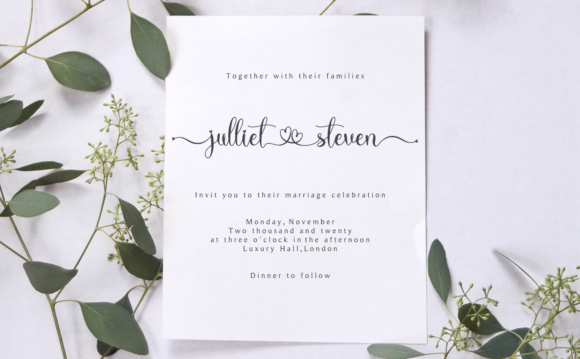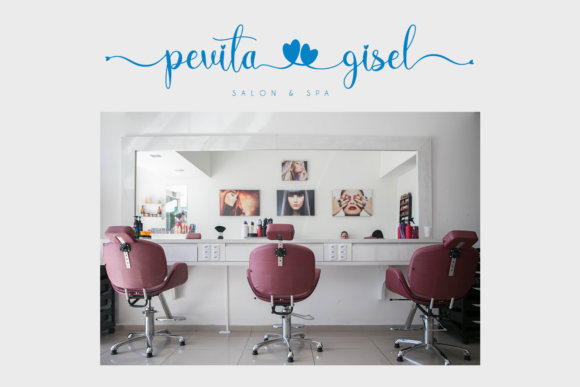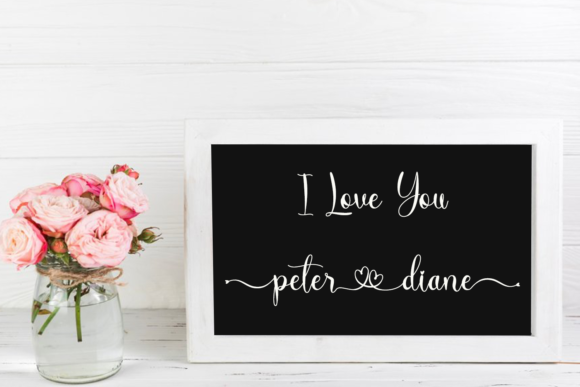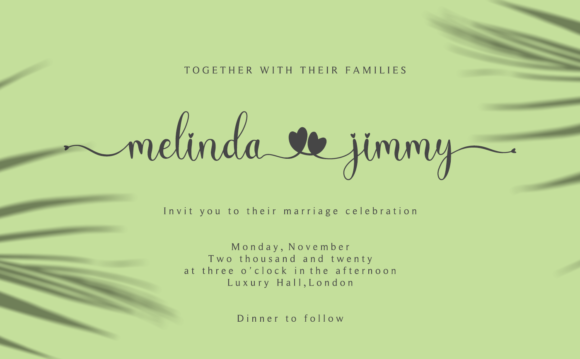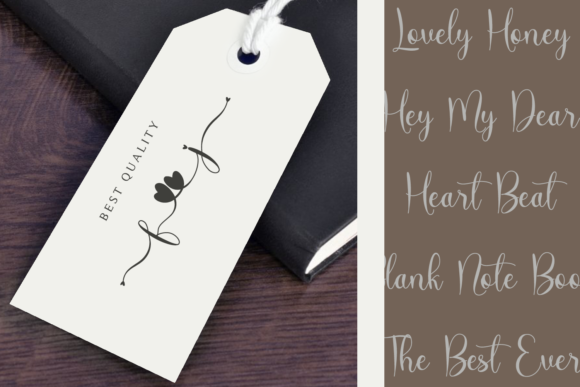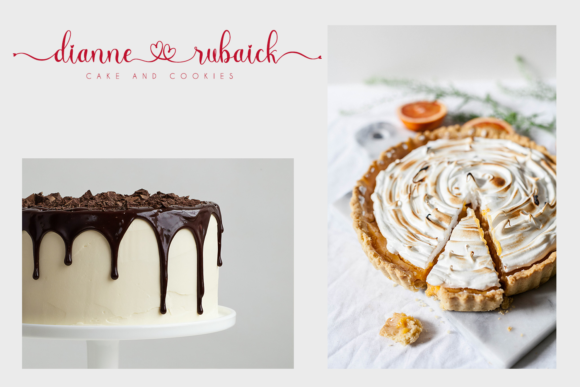
Introduction to Molly Willy Font
Have you ever been working on a creative project and stumbled upon the perfect font to bring it to life? For designers, finding that one special font can make all the difference. I still remember the thrill of discovering the Molly Willy Font, with its romantic and dreamy handwritten style that features dazzling double heart shaped swashes.
As I delved deeper into the world of this enchanting font, I realized its value extends beyond just aesthetics. With its PUA encoded design, Molly Willy Font offers seamless access to all its glyphs and swashes, making it a high-quality design resource for any project. Whether you’re crafting beautiful wedding invitations or designing cute greeting cards, this font is sure to add a touch of magic to your work.
Key Features of Molly Willy Font
- High-quality design resource ideal for creative projects, offering a unique and elegant style.
- Designed to be highly legible, with clear and crisp lettering suitable for both digital and print projects.
Honest Review: Molly Willy Font
I recently stumbled upon the Molly Willy Font while working on a creative project, and I must say it’s been a game-changer. As a designer, I’m always on the lookout for high-quality design resources, and this font definitely fits the bill. One of the things that stood out to me was the transparent background, which made it easy to integrate into my design without any fuss.
- ✨ The font is highly customizable, with a wide range of styles and sizes to choose from.
However, there are a few limitations to consider. ⚠️ The font may not be suitable for all types of projects, particularly those that require a more formal or traditional look. Additionally, the font may not be as versatile as some other options on the market.
The Molly Willy Font is perfect for various creative projects, including logos, social media graphics, business cards, and brochures. Its free download makes it an accessible design resource for designers and non-designers alike.